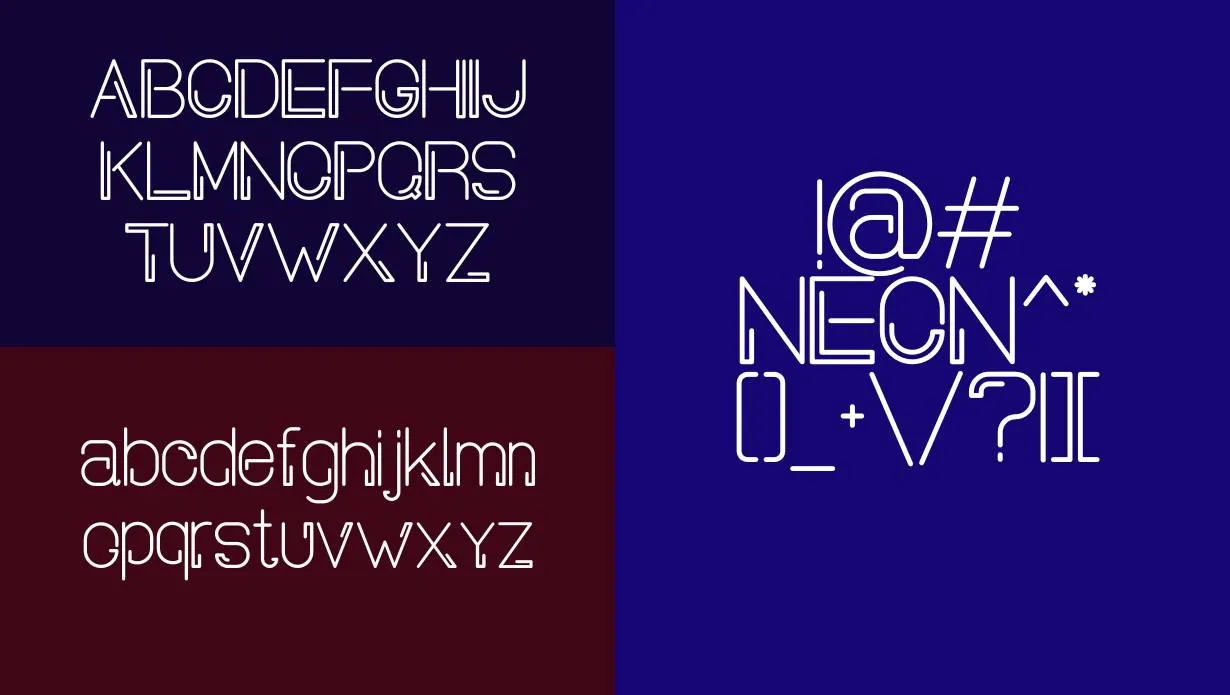
Neon Plant font was designed by Donis Miftahudin and manufactured by Din Studios. It is a very attractive fancy font. It supports file formats True Type Font and Open Type Font. You can see changes in your simple text online by using its online generator tool.
| Name | Neon Planet Font |
| Designer | Donis Miftahudin |
Neon Planet Font Family